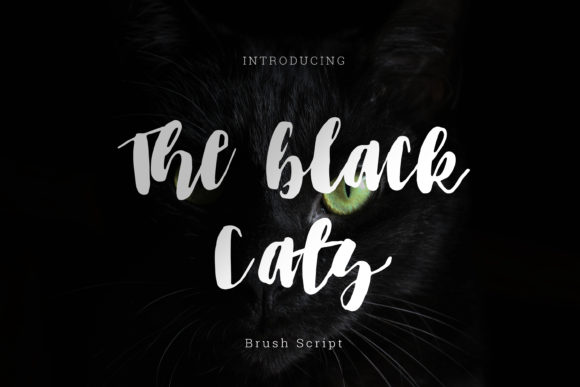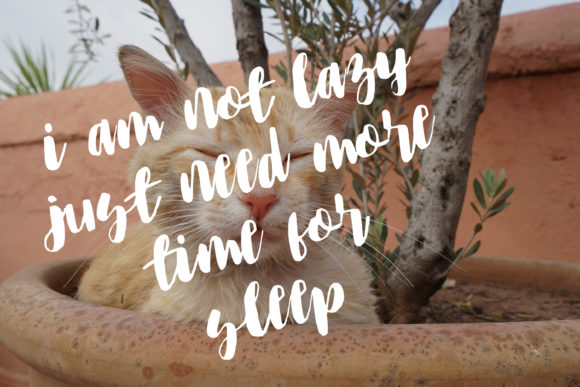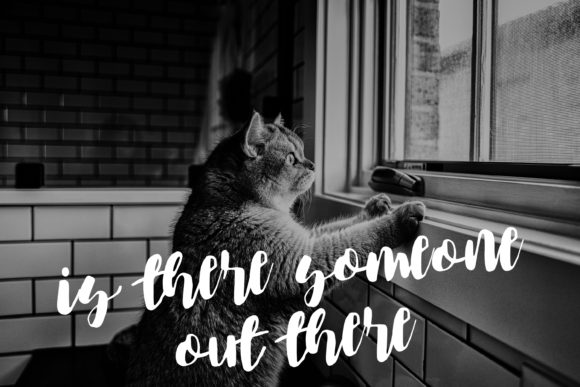
The Black Cats Font
About The Black Cats Font
The Black Cats is a flowing handwritten font, described by an elegant touch, perfect for your favorite projects. Fall in love with its incredibly distinct and timeless style and use it to create spectacular designs!